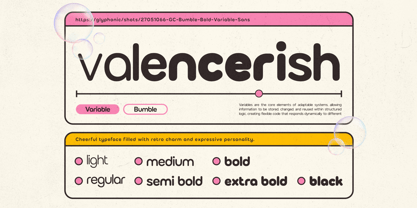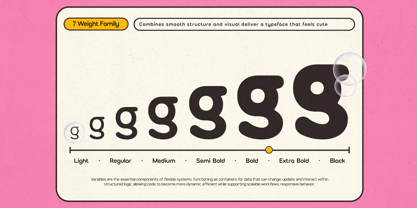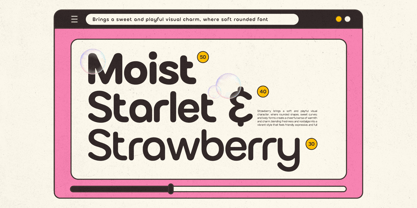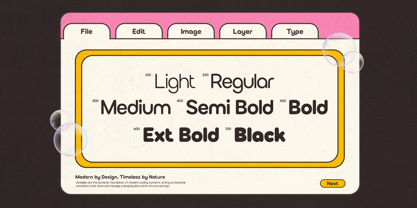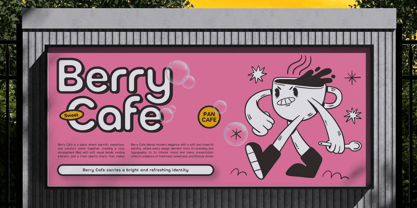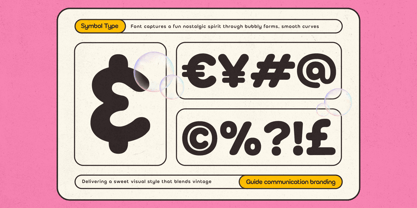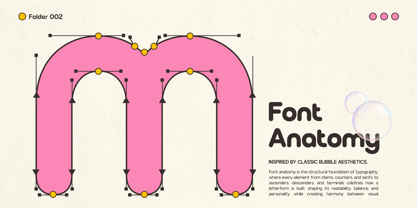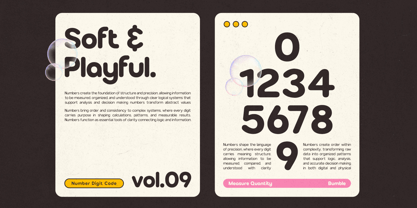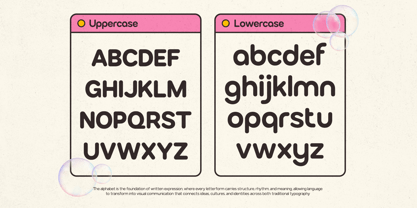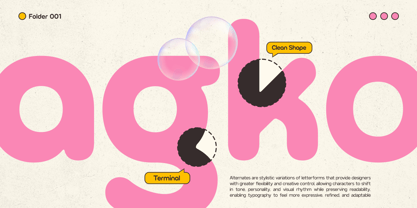
GC Bumble
The GC Bumble Font Family was designed by Muhammad Hafiizh Solana and published by Onyx Studio. GC Bumble contains 7 styles and family package options. More about this family
GC Bumble – Rounded Sans Display is a playful rounded display typeface designed to bring warmth, personality, and cheerful energy into modern typography. Built with smooth curves, bold proportions, and soft geometric forms, Bumble delivers a friendly visual voice that feels expressive, approachable, and highly memorable.
With its rounded construction and balanced letterforms—as seen in its bubbly and soft-edged shapes—**GC Bumble** creates a lively and modern appearance perfect for eye-catching visual compositions. The smooth rhythm between characters enhances readability while maintaining a fun and dynamic personality.
As a variable font with multiple weight options, GC Bumble offers flexibility for designers to create playful hierarchy across branding, posters, packaging, social media visuals, and modern creative projects. From light and clean typography to bold and impactful headlines, the font maintains consistency and charm throughout every weight.
Crafted for both digital and print environments, GC Bumble blends retro-inspired warmth with contemporary design clarity, making it ideal for brands and visuals that aim to feel modern, expressive, and friendly.
Features:
- Variable Font (Light – Black)
- Rounded Sans Display Construction
- Uppercase & Lowercase
- Numbers & Punctuation
- Smooth Curves & Soft Geometry
- Playful & Friendly Character
- Multilingual Support (170+ Languages)
GC Bumble — playful rounded typography with modern warmth and expressive charm.